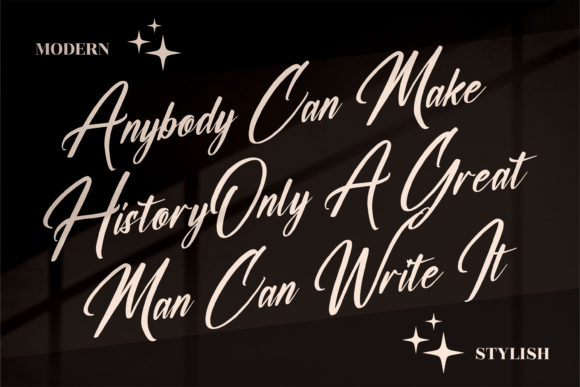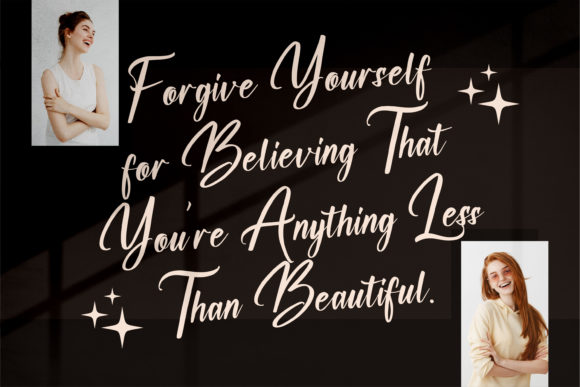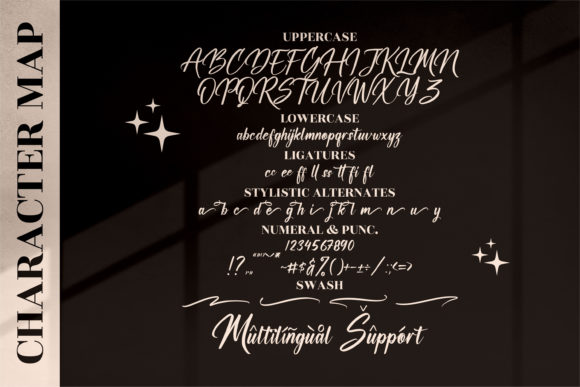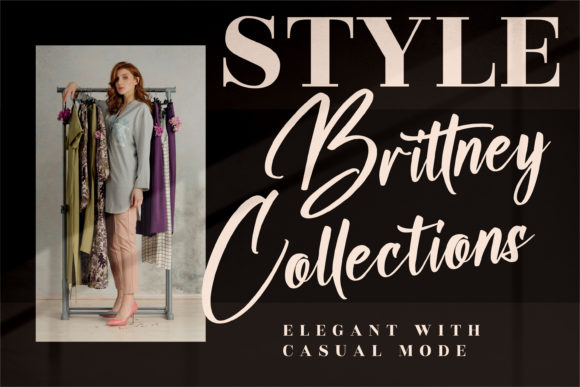
About Washington Calligraphy Font
Washington Calligraphy is a magical script font carefully created with a touch of elegance. Whether you’re looking for fonts for Instagram or calligraphy scripts for DIY projects, this font will turn any creative idea into a true piece of art!